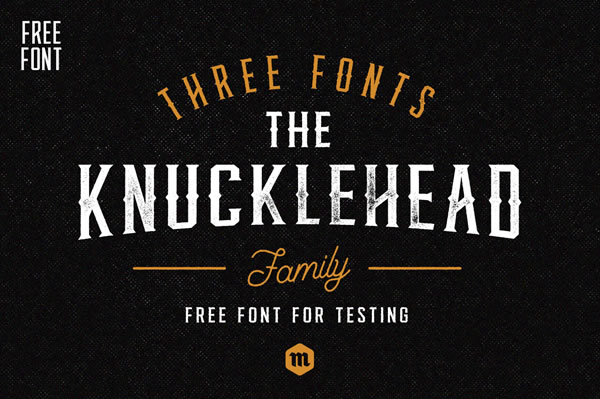
Introducing Knucklehead Font, the perfect addition to your font collection for anyone looking to create a bold and edgy design. Inspired by American western culture and tattoos, Knucklehead offers three display fonts that will elevate your designs to the next level.
Created by Headfonts, Knucklehead Font is the epitome of masculine style. It's perfect for those who are looking to express a rugged and rebellious vibe in their work. Whether you're designing for a motorcycle shop, a brewery, or a tattoo parlor, Knucklehead is the font family that will bring your project to life.
With its vintage and timeless feel, Knucklehead Font is the ultimate choice for designers who want to add a touch of classic Americana to their work. The font set offers a range of styles that are both versatile and unique. Use it for headlines, logos, packaging, and more.
With Knucklehead Font, the possibilities are endless. The three fonts included in the set are sure to inspire you to create something truly remarkable. The bold and attention-grabbing characters are guaranteed to leave a lasting impression on anyone who sees them.
In summary, Knucklehead Font is the font family that will take your designs to the next level. Its masculine and edgy style is perfect for expressing certain themes in your work, and its vintage feel adds a touch of classic Americana to any project. Download Knucklehead Font today and start creating something truly remarkable.